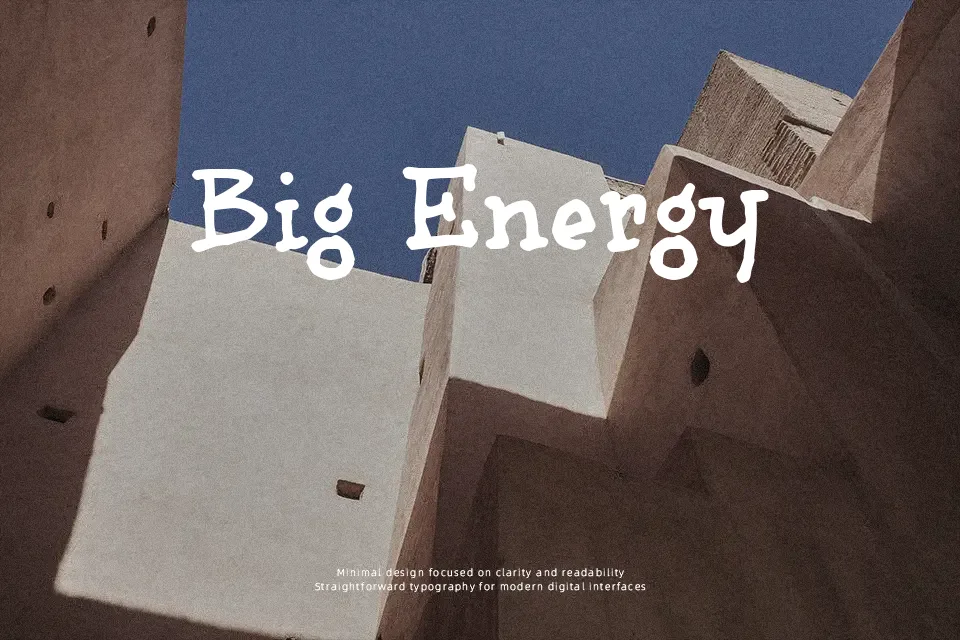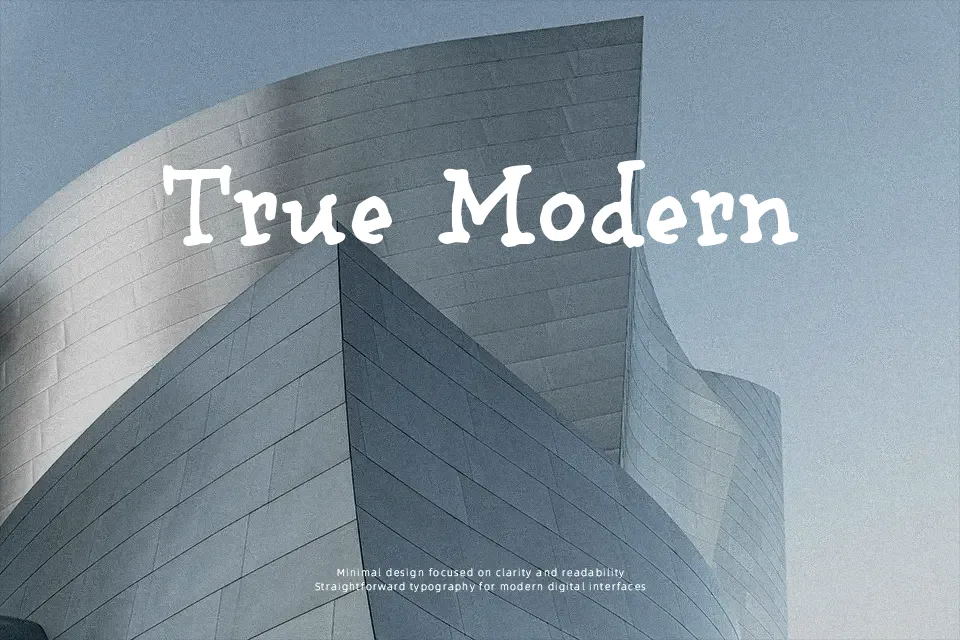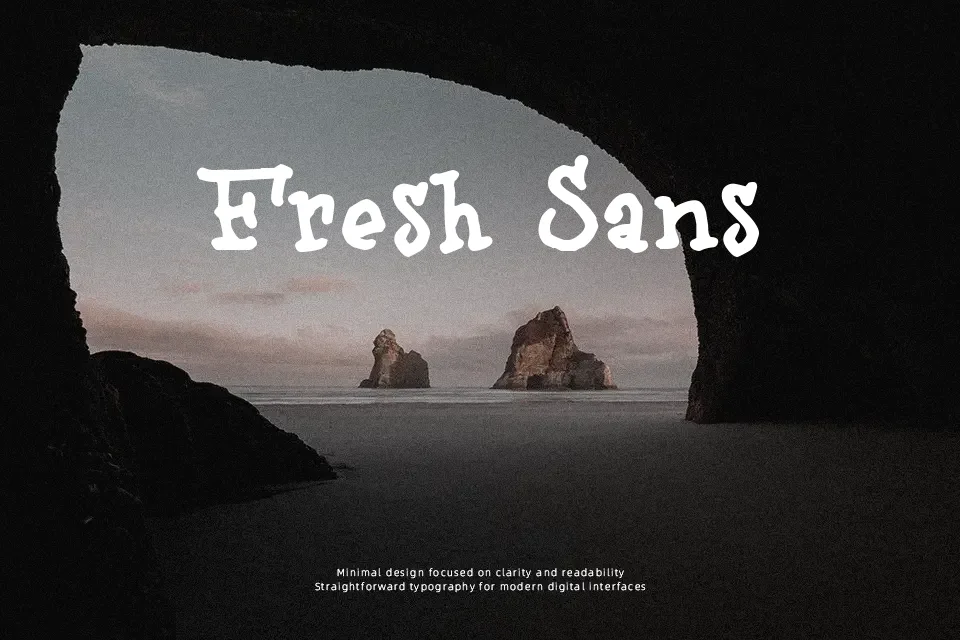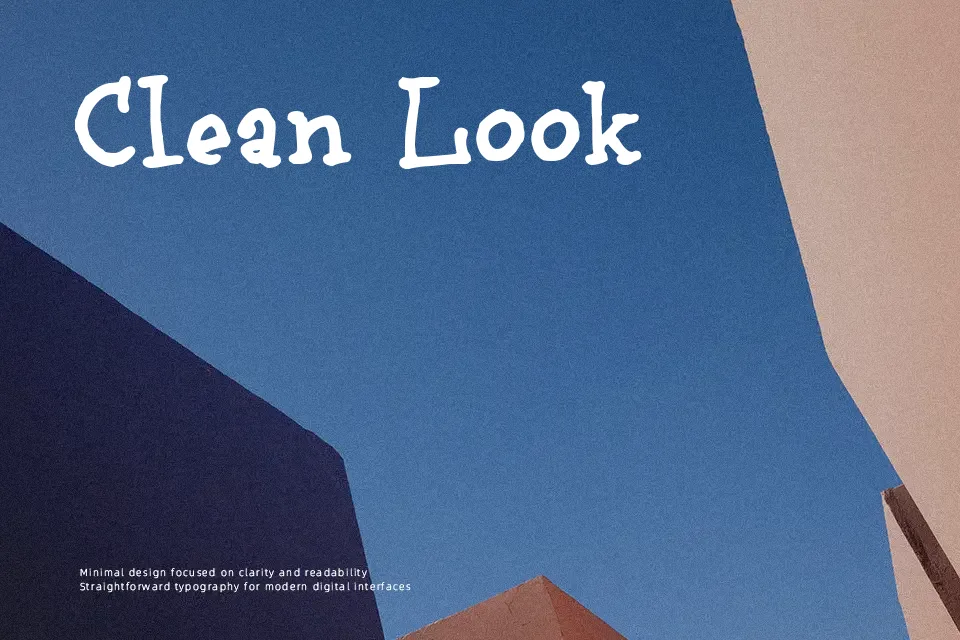
Bruno Book Font
Designed by JOEBOB graphics
Bruno Book looks like it was dashed off with a thick pen: irregular lines, inconsistent curves, and slightly wobbly spacing give it a raw, hand-drawn character. The letters sit loosely on the baseline and the weight shifts from stroke to stroke, so nothing feels too rigid or mechanical. Visually it reads as a playful, informal display style, closer to notebook lettering than to classic script or clean sans serif. This makes it useful for headlines on posters, music flyers, zines, or social media graphics where you want a human, unpolished tone rather than a corporate feel. It struggles in long paragraphs, small UI labels, or brand systems that demand strict precision, so it is best kept for short, expressive text blocks.
hand-lettered style posters
casual music or event flyers
informal social media graphics
long body copy or articles
formal corporate branding
tiny UI labels or dense interfaces
Perfect for advertising, headline, and poster, with a artistic and display style.